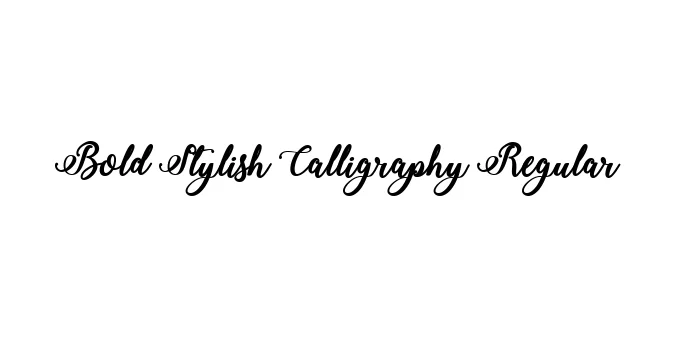
Bold Stylish Calligraphy Regular
Designed by Misti's Fonts
| Font Name | Bold Stylish Calligraphy |
| Category | Calligraphy / Script |
| Designer | Misti's Fonts |
Bold Stylish Calligraphy Regular is a sophisticated and high-impact script typeface designed to bring elegance and flair to any creative project. Featuring flowing curves and thick, deliberate strokes, this font captures the essence of modern brush lettering with a high-contrast aesthetic. Its balanced weight and rhythmic character spacing ensure that it remains legible even in complex layouts, making it a favorite for designers seeking a luxurious and hand-crafted feel.
Historically, this style of calligraphy emerged as a digital response to traditional ink-and-pen techniques, offering a consistent and versatile alternative for contemporary branding. It is widely used for high-end packaging, wedding stationery, and editorial headers where a touch of personal charm is required. The font's robust structure allows it to stand out against busy backgrounds, making it particularly effective for print and digital media alike.
Bold Stylish Calligraphy Regular Best Uses
Perfect for creating romantic and elegant names for stationery.
Provides a unique and high-end feel for lifestyle and beauty brands.
Ideal for high-impact quotes and eye-catching Instagram posts.
Adds a premium, artisanal touch to product labels and gift boxes.